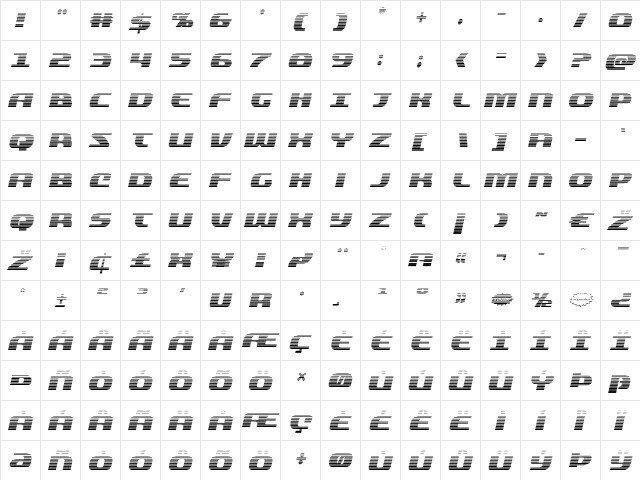
Quickening Gradient Italic Italic
Design Context for Quickening Gradient Italic Typeface
Quickening Gradient Italic is a composed and adaptable typeface that performs quietly and consistently across a wide range of design contexts. The dynamic lean of this cut emphasises speed and emphasis in any layout.
Pro Tip: Use Quickening Gradient Italic for emphasis, pull quotes, and subheadings where its slanted energy can add rhythm to the layout.